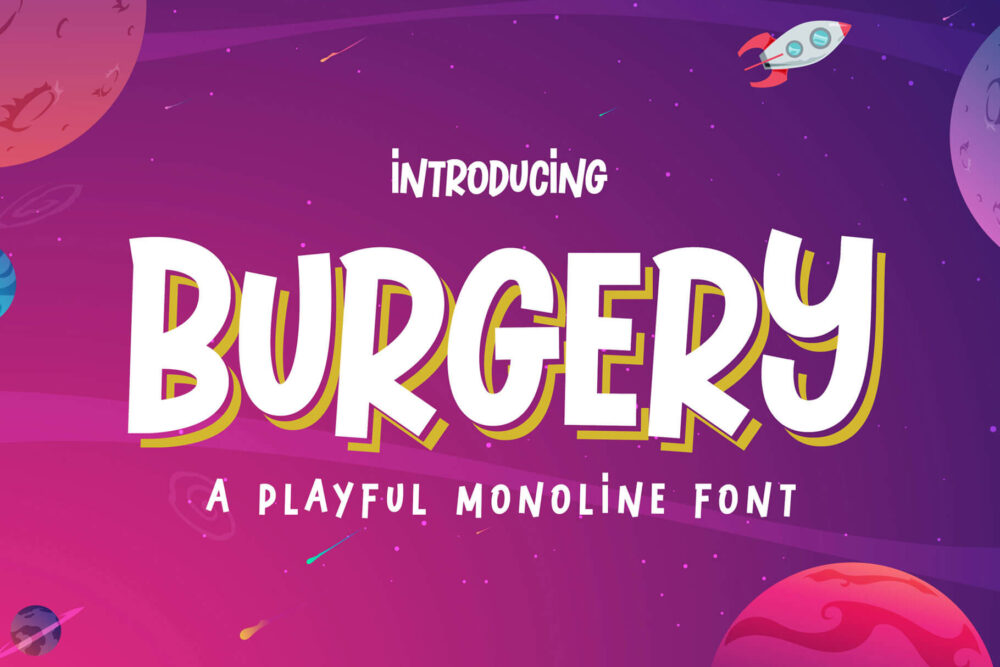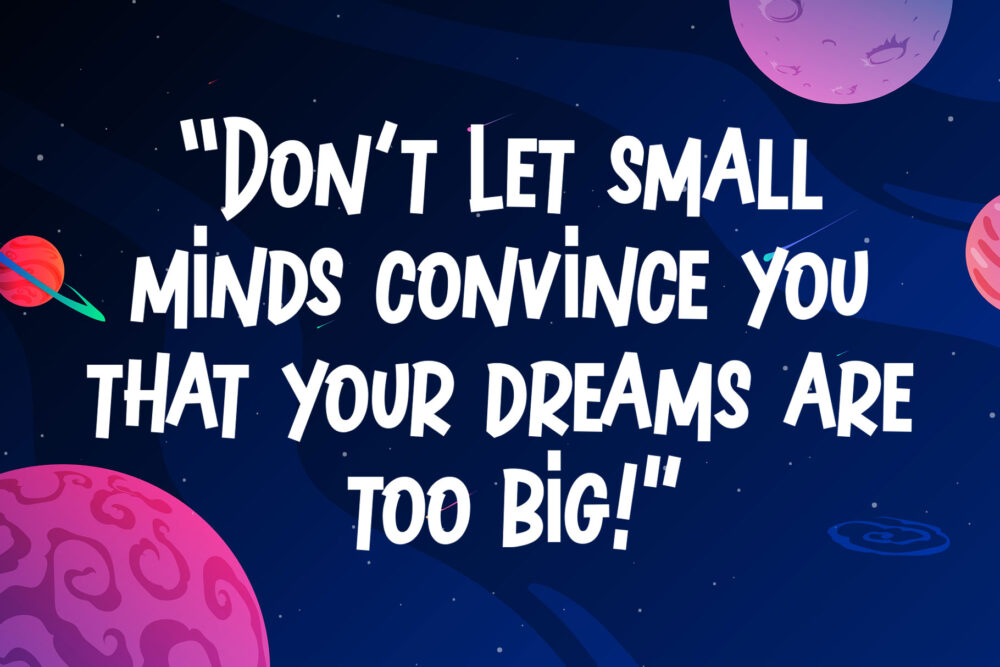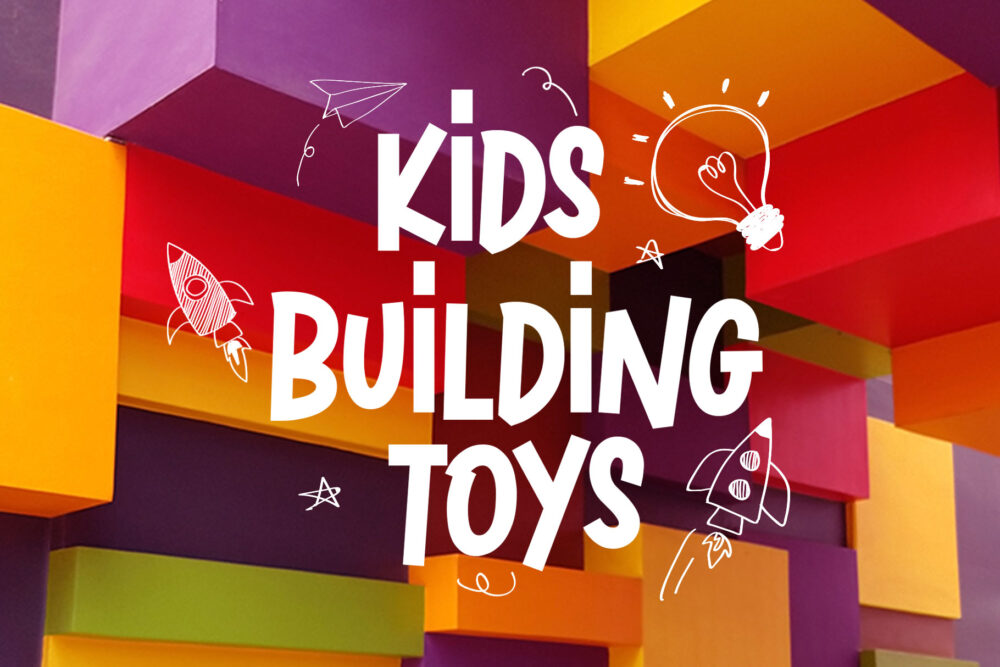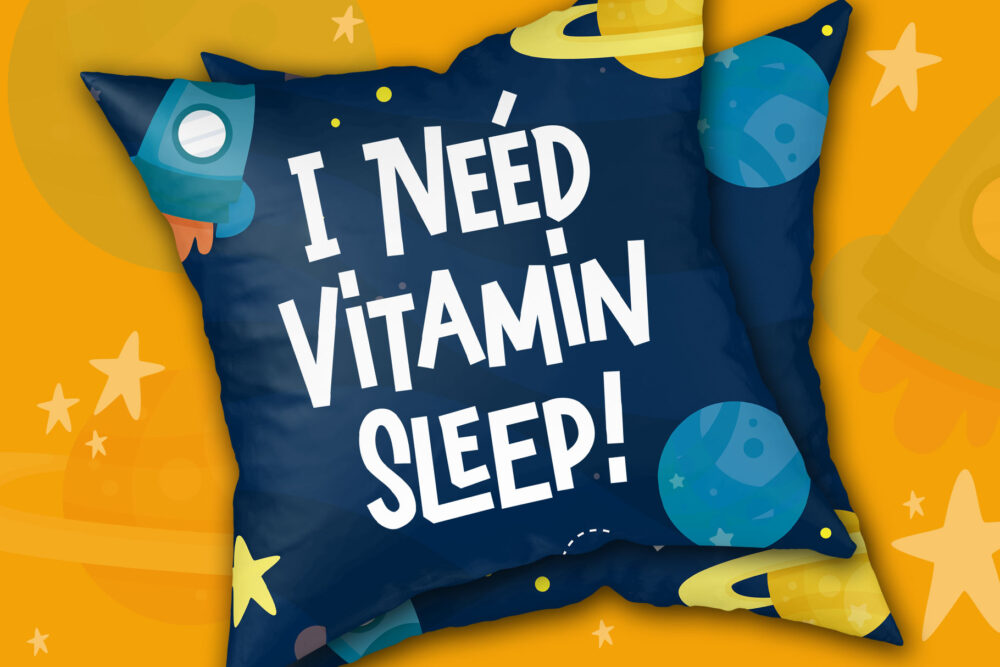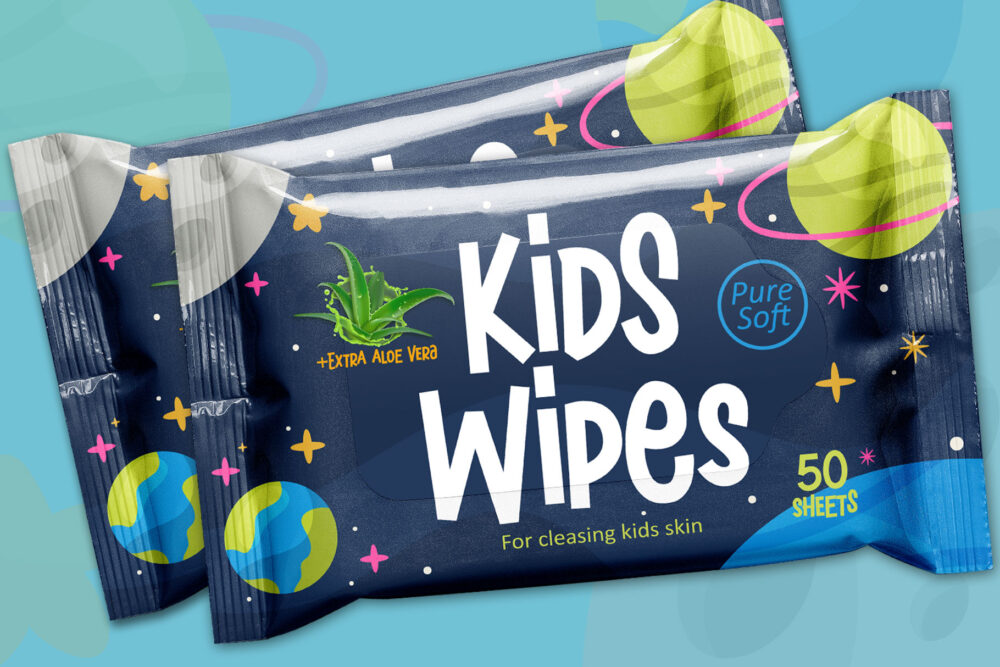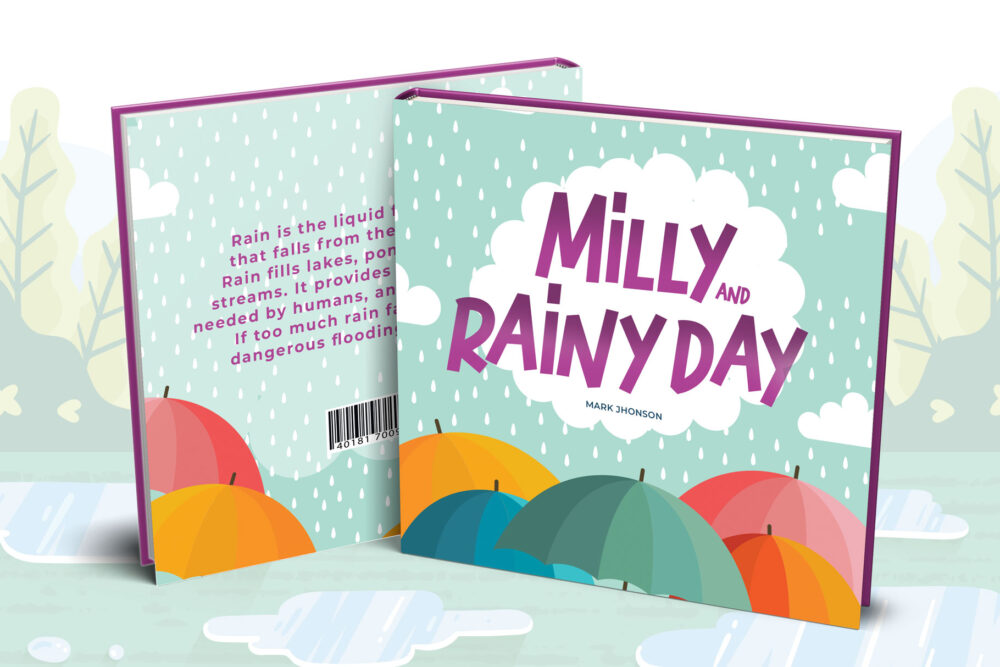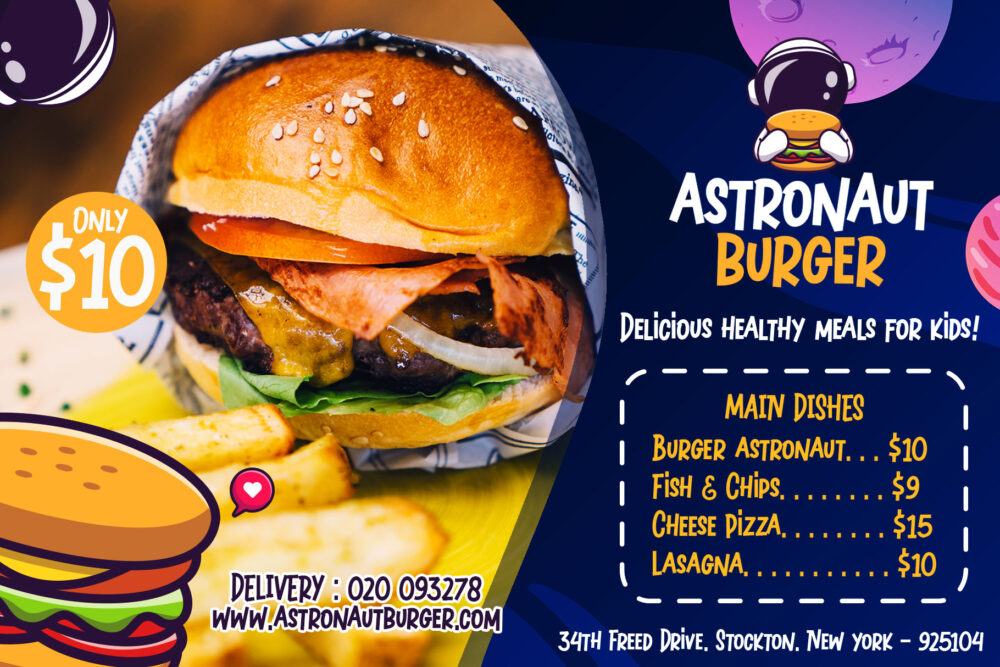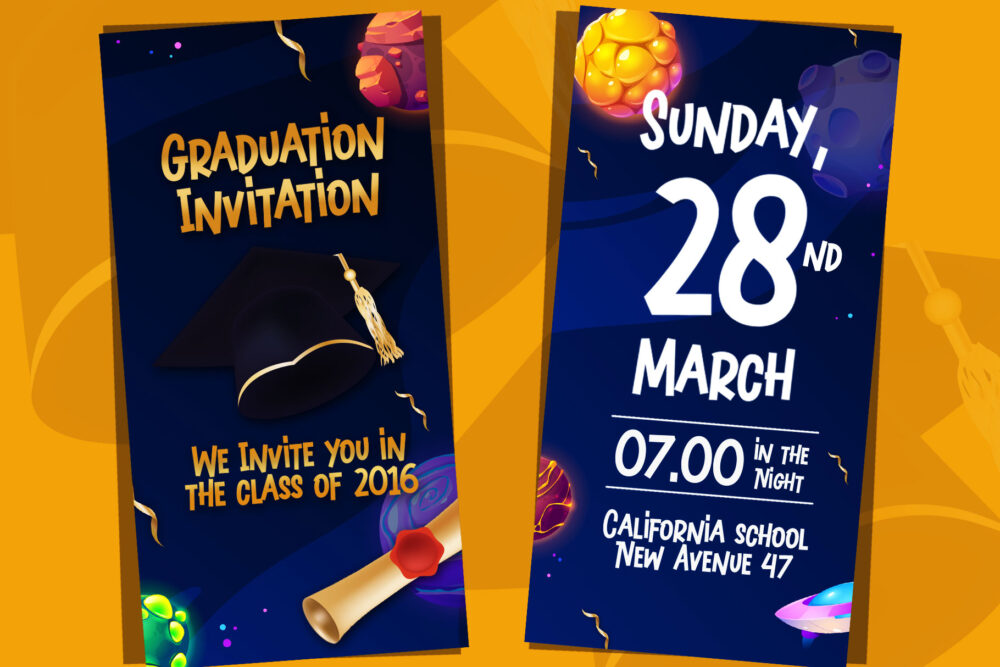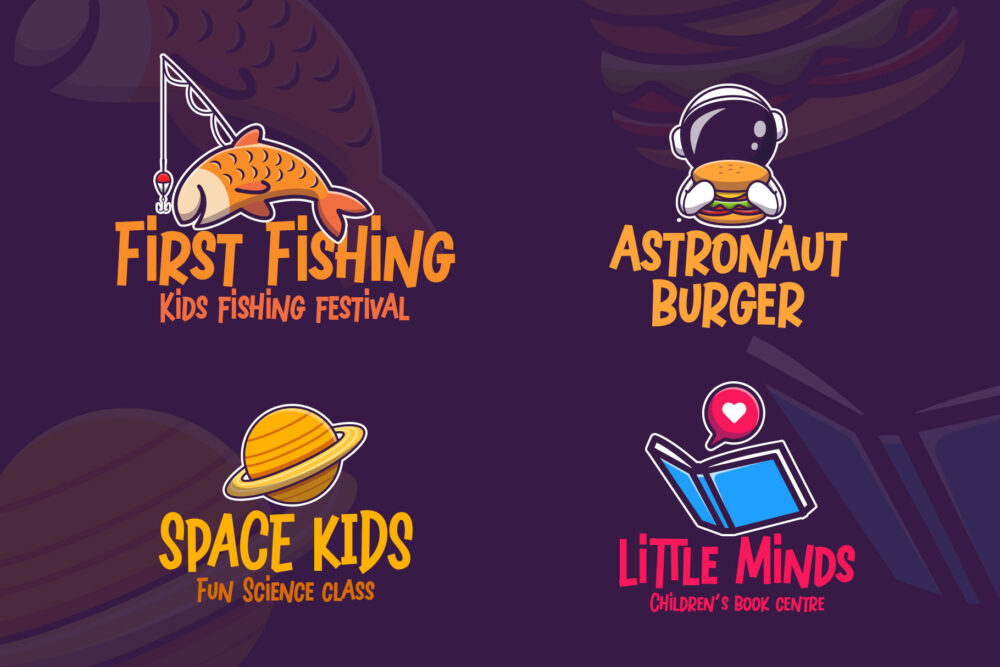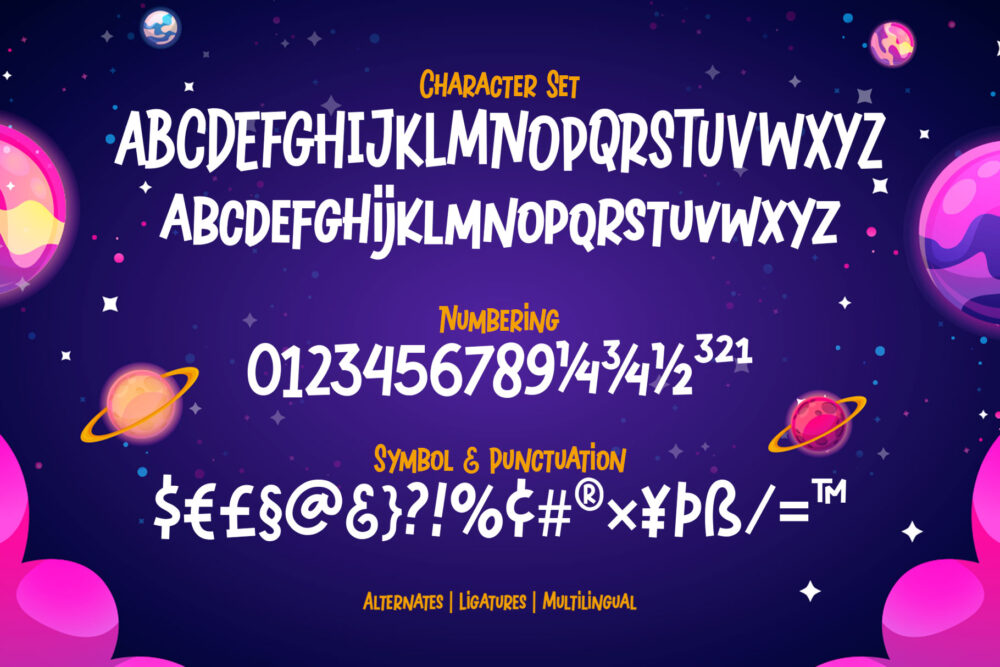
Say hello, to Burgery! A playful display font. Inspired by kids’ games and snacks typography. Burgery designed in monoline concept and adjusted well to keep the legibility. Burgery is a flexible typeface that you can use for many kinds of stuff and themes.
Burgery is an all-caps font, equipped with stylistic alternates, ligatures, Burgery is perfect for kids’ merchandise, quotes, t-shirts, posters, social media, pillow, packaging, storybook, food menu, cafe decoration, logos, and much more!
Mix and play your words with Burgery!